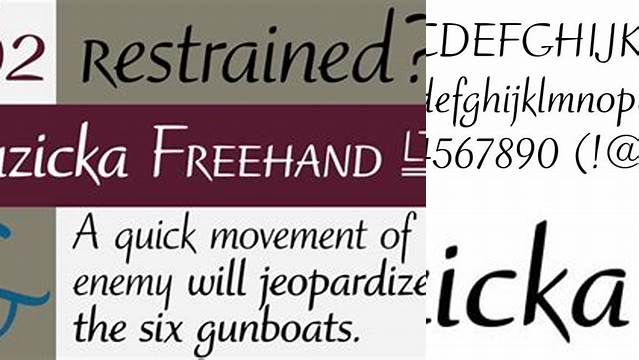
Are you on the hunt for a unique and eye-catching font? Look no further than the Ruzicka Freehand Font! This font is not just a typeface; it's a statement, a style, and a way to express yourself in the digital world. And the best part? You can get a Ruzicka Freehand Font Free Download! In this comprehensive guide, we'll delve into everything you need to know about this fantastic font, from its features and uses to where you can download it safely and legally. So, buckle up, guys, and let's get started on this font-tastic journey!
Understanding the Allure of Ruzicka Freehand Font
The Ruzicka Freehand Font has captured the hearts of designers and creatives worldwide. Its popularity stems from its distinctive style, which perfectly blends elegance and informality. Unlike rigid, structured fonts, the Ruzicka Freehand Font offers a touch of human warmth, making your designs feel more approachable and inviting. The fluidity of the strokes and the slight imperfections give it a handcrafted feel, setting it apart from the often-sterile world of digital typography. This font is perfect for projects where you want to convey a sense of authenticity, creativity, and personal touch. Whether you're designing a logo, crafting invitations, or creating social media graphics, the Ruzicka Freehand Font can elevate your project, making it stand out from the crowd. Its versatility allows it to be used in various design applications, from personal blogs to professional branding. This is why a Ruzicka Freehand Font Free Download is so highly sought after.
The font's design is rooted in the art of calligraphy and hand lettering, giving it a unique and personal touch. Each letter appears to have been meticulously crafted, with flowing lines and elegant curves that make it visually appealing. When choosing a font for your project, it's essential to consider your target audience and the message you want to convey. The Ruzicka Freehand Font is well-suited for projects aimed at a creative, artistic, or youthful audience. Its free-flowing style is ideal for communicating warmth, friendliness, and creativity. The font's distinct aesthetic gives it a timeless appeal, so your designs won't appear dated or out of touch. When you find a Ruzicka Freehand Font Free Download, you're not just getting a font; you're gaining access to a versatile design tool that will help you communicate your ideas effectively. The Ruzicka Freehand Font is more than just a typeface; it's a way of expressing your creativity and sharing your unique perspective with the world.
The beauty of the Ruzicka Freehand Font lies in its adaptability. It can be used in various design contexts, from designing websites to creating printed materials. The font's readability makes it a great choice for headings, titles, and short passages of text. Its stylish appearance also makes it perfect for incorporating into logos, branding materials, and promotional materials. When designing a logo, the Ruzicka Freehand Font can create a memorable and unique identity for your brand. Its distinctive look will grab the viewer's attention and make a lasting impression. In branding materials, the font can reinforce your brand's personality and style, creating consistency across all your marketing efforts. This font's adaptability is one of the reasons the Ruzicka Freehand Font Free Download is such an invaluable resource. The font can be used in various sizes and formats, providing you with ultimate flexibility in your design projects. The font's versatility and visual appeal makes it a powerful tool for designers looking to add character and personality to their work. Whether you're a seasoned professional or a beginner, the Ruzicka Freehand Font is a design asset you'll want to have in your collection.